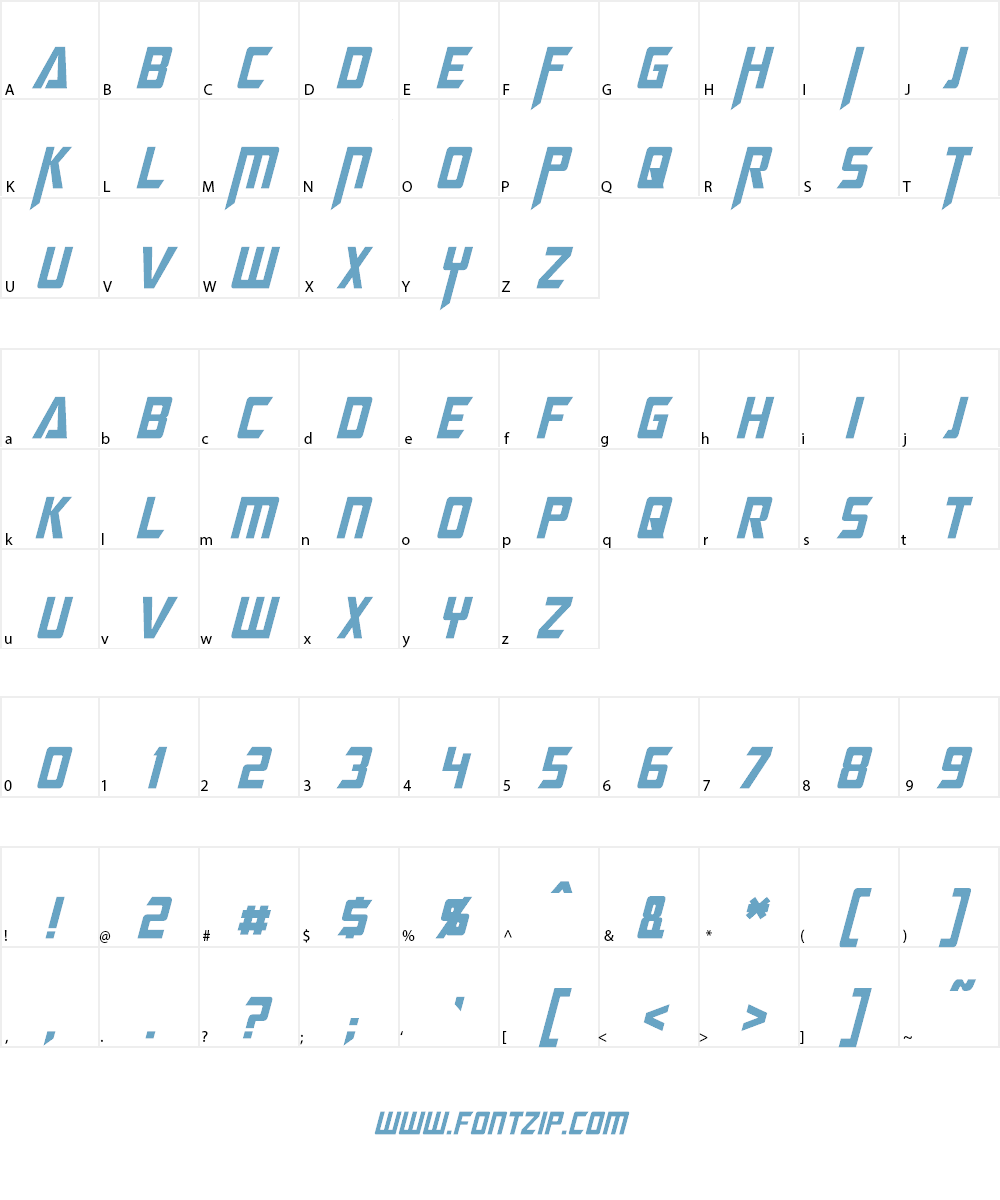
Based on Micheal Bay's "Transformers" live-action movie logo text. Includes flourish caps, regular caps, numbers and punctuation as well as extended character set, euro. Left and right brackets have been replaced by the "movie" versions of the Autobot and Decepticon Insignia, respectively. Includes hollow, condensed and italic versions.